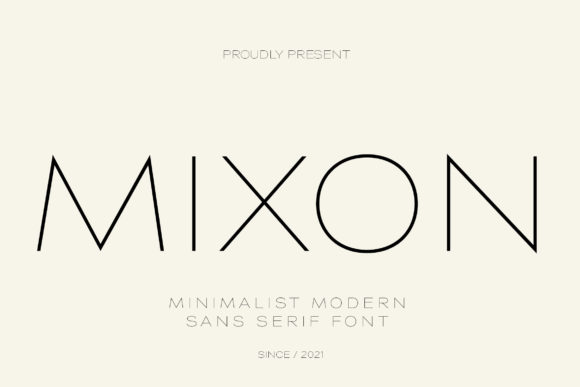
Introducing Mixon Font: The Sans Serif Font That Speaks Success
In the realm of business documents, where clarity and professionalism reign supreme, Mixon Font emerges as a beacon of elegance and sophistication. Its clean lines, balanced proportions, and understated charm instill a sense of trust and authority in your written communications. With Mixon Font as your chosen ambassador, your business documents will radiate an aura of credibility and competence, leaving a lasting impression on your audience.
Beyond its inherent beauty, Mixon Font is a testament to versatility. Its carefully crafted characters possess an inherent adaptability that allows them to seamlessly blend into a myriad of projects. Whether you're crafting a formal report, designing an eye-catching presentation, or composing a persuasive marketing brochure, Mixon Font will effortlessly elevate your work to new heights of visual appeal.
As a creation of Fontherapy, Mixon Font inherits a rich legacy of typographic excellence. Fontherapy's unwavering commitment to innovation and artistry shines through in every curve and stroke of this sans serif masterpiece. By choosing Mixon Font, you align yourself with a brand synonymous with quality, creativity, and an unwavering dedication to pushing the boundaries of font design.
Unleash the Power of Mixon Font
With Mixon Font at your disposal, you gain access to a font that not only enhances the visual appeal of your business documents but also empowers you to communicate with clarity and impact. Its meticulously designed letterforms ensure readability even in the most complex layouts, while its subtle nuances add a touch of understated elegance that sets your work apart from the ordinary.
But Mixon Font's true strength lies in its versatility. It effortlessly adapts to a wide range of design aesthetics, from the clean and minimalist to the bold and expressive. Whether you're creating a formal letter, a dynamic infographic, or an engaging social media post, Mixon Font will seamlessly integrate into your design, enhancing its overall impact and leaving a lasting impression on your audience.
Experience the Mixon Font Difference
Embrace Mixon Font and elevate your business documents to new heights of professionalism and sophistication. Let its clean lines and balanced proportions guide your words, creating a symphony of visual harmony that captivates your readers and leaves them eager for more. Experience the transformative power of Mixon Font today and witness the remarkable difference it makes in your business communications.